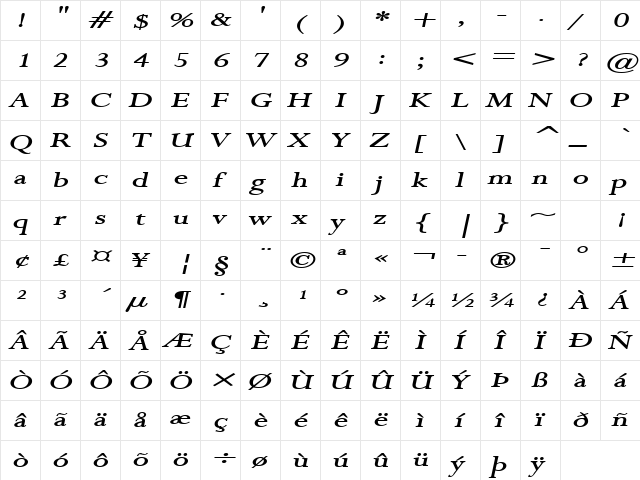
Rapid Extended BoldItalic
Design Context for Rapid Extended Typeface
Rapid Extended takes a measured approach to typography — its balanced proportions and neutral character make it a reliable workhorse for both digital and print work. Its italic angle brings a sense of urgency and motion to the letterforms. The heavy weight commands attention and anchors typographic hierarchies.
Pro Tip: Use Rapid Extended for emphasis, pull quotes, and subheadings where its slanted energy can add rhythm to the layout.